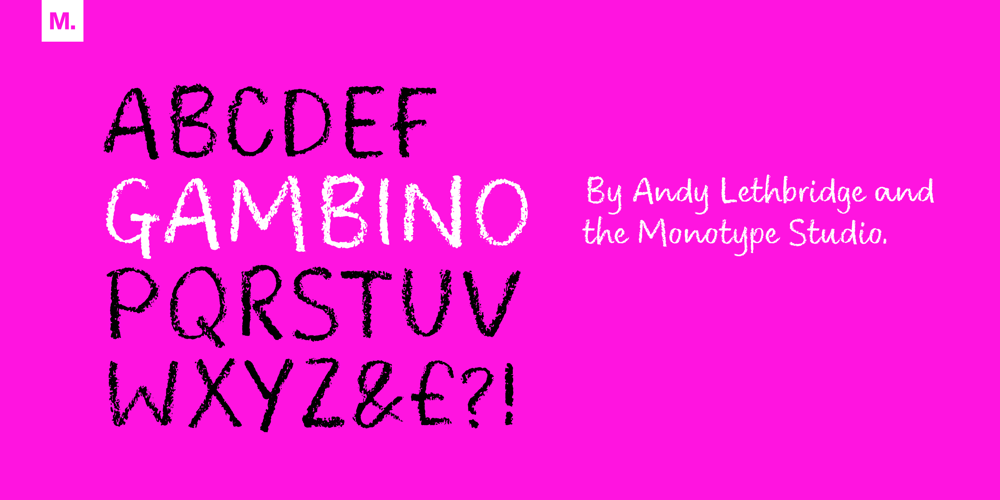
Gambino Font Family was designed by Andrew Lethbridge and published by Monotype. Gambino contains 1 styles and family package options. Childlike, sure; utterly affable, yes, but ultimately actually very cool. Yup, that’s Gambino. This chalky, super textured, semi connected script is a kooky playground pal and a grown-up technically savvy typeface all rolled into one. Upright yet tumbling, these simple, crayon-like letterforms are a delight.